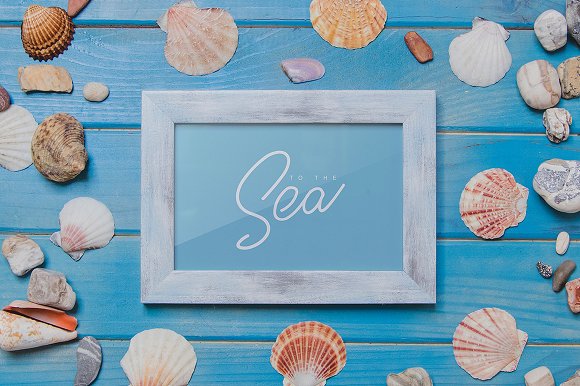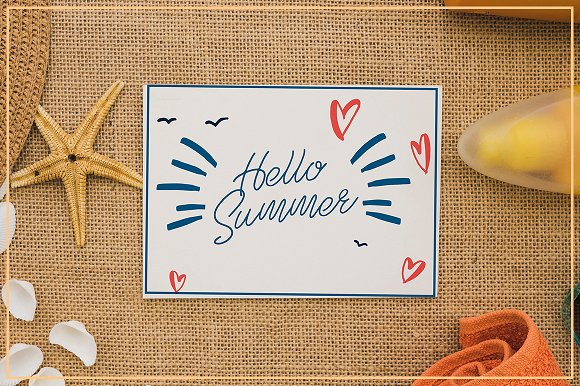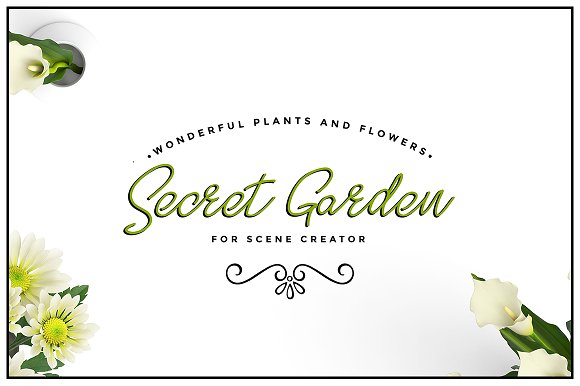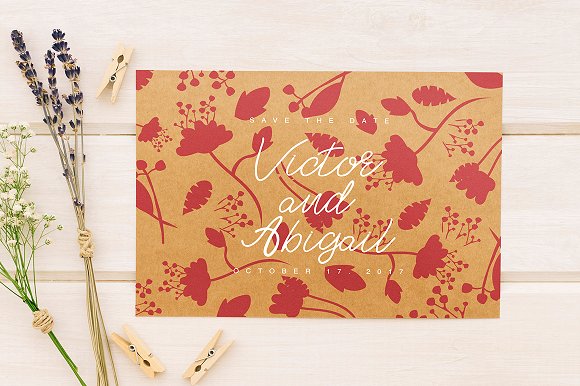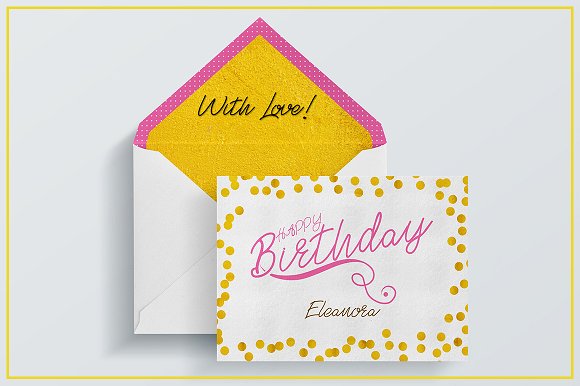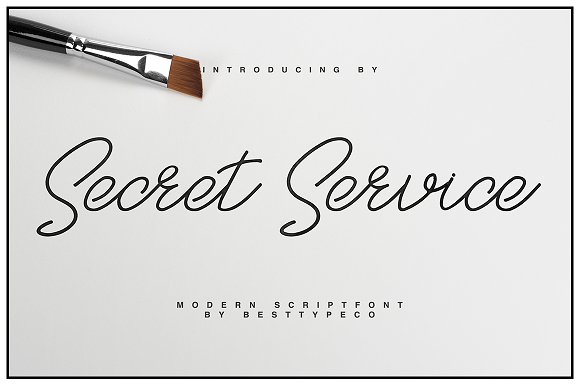
SecretService Font
SecretService – a new fresh handmade calligraphy font. Very suitable for greeting cards, branding materials, business cards, quotes, posters, and more!
This font are perfect for wedding postcard. Or you can create perfect and unique design of your logo, blog, stationery, marketing, magazines and more 🙂